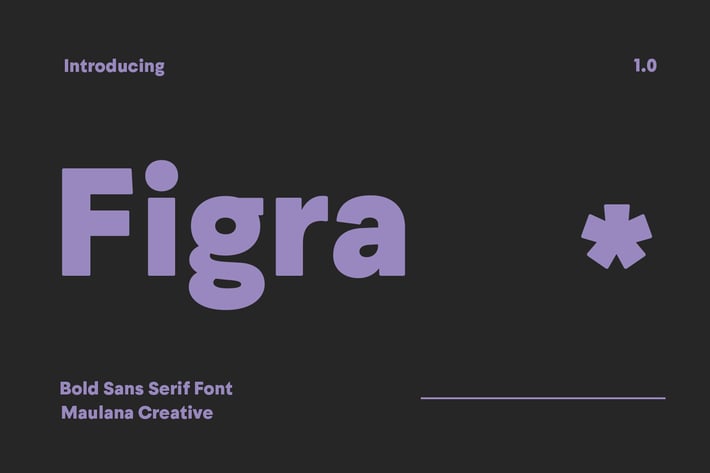
Figra Sans Serif Font
Figra is a modern clean contemporary sans serif font. Bold stroke, fun character with a bit of ligatures and alternates. To give you an extra creative work. Figra font support multilingual more than 100+ language. This font is good for logo design, Social media, Movie Titles, Books Titles, a short text even a long text letter and good for your secondary text font with script or serif. Make a stunning work with Figra font.